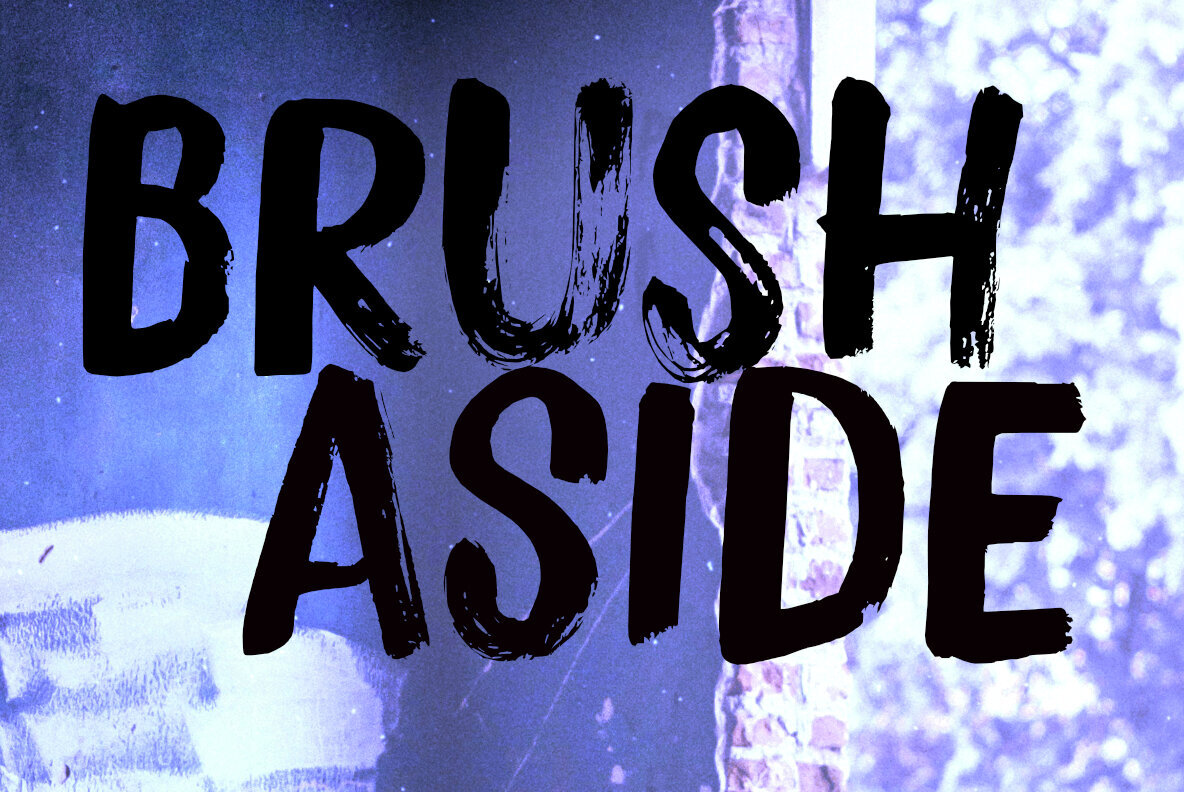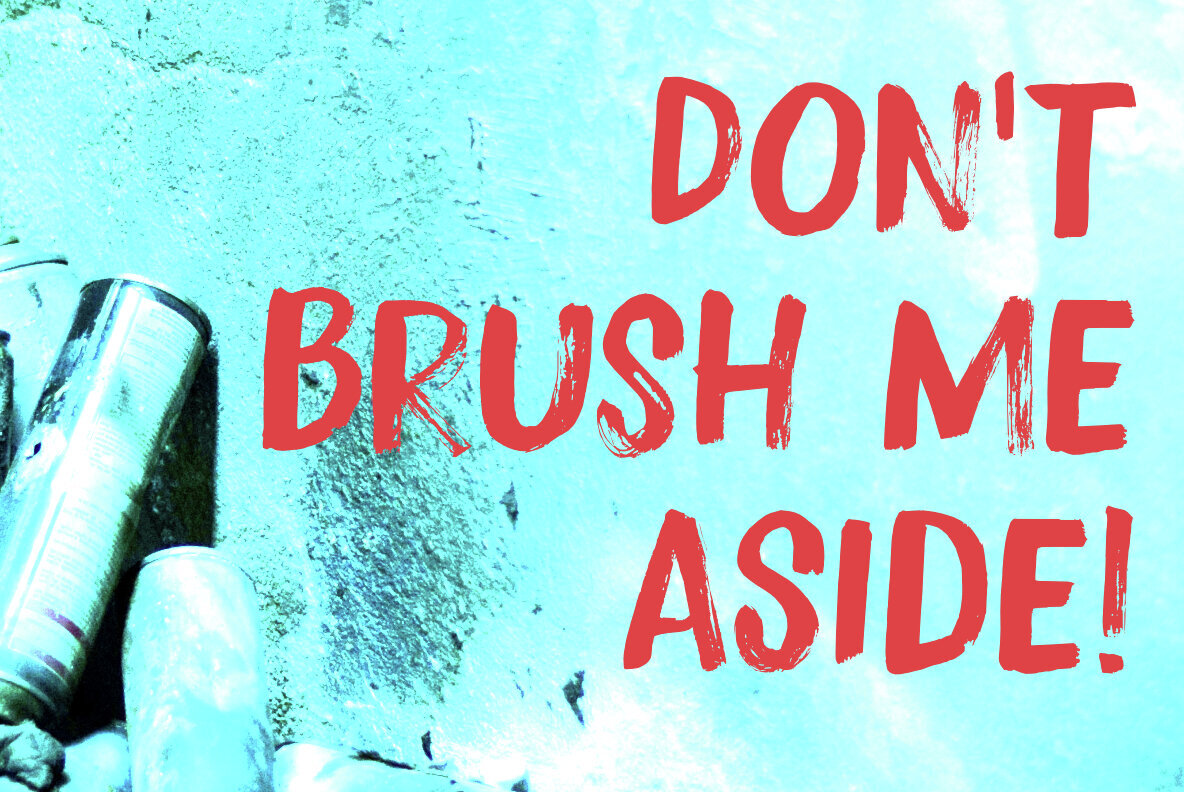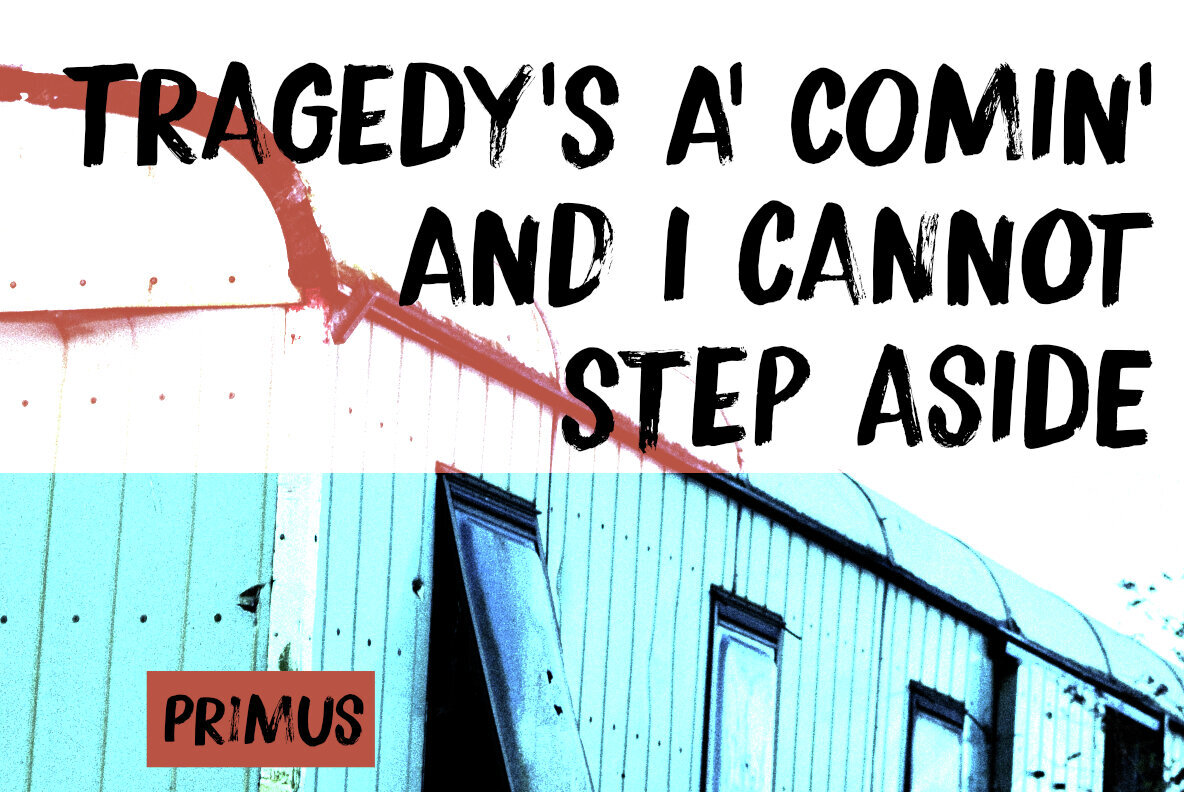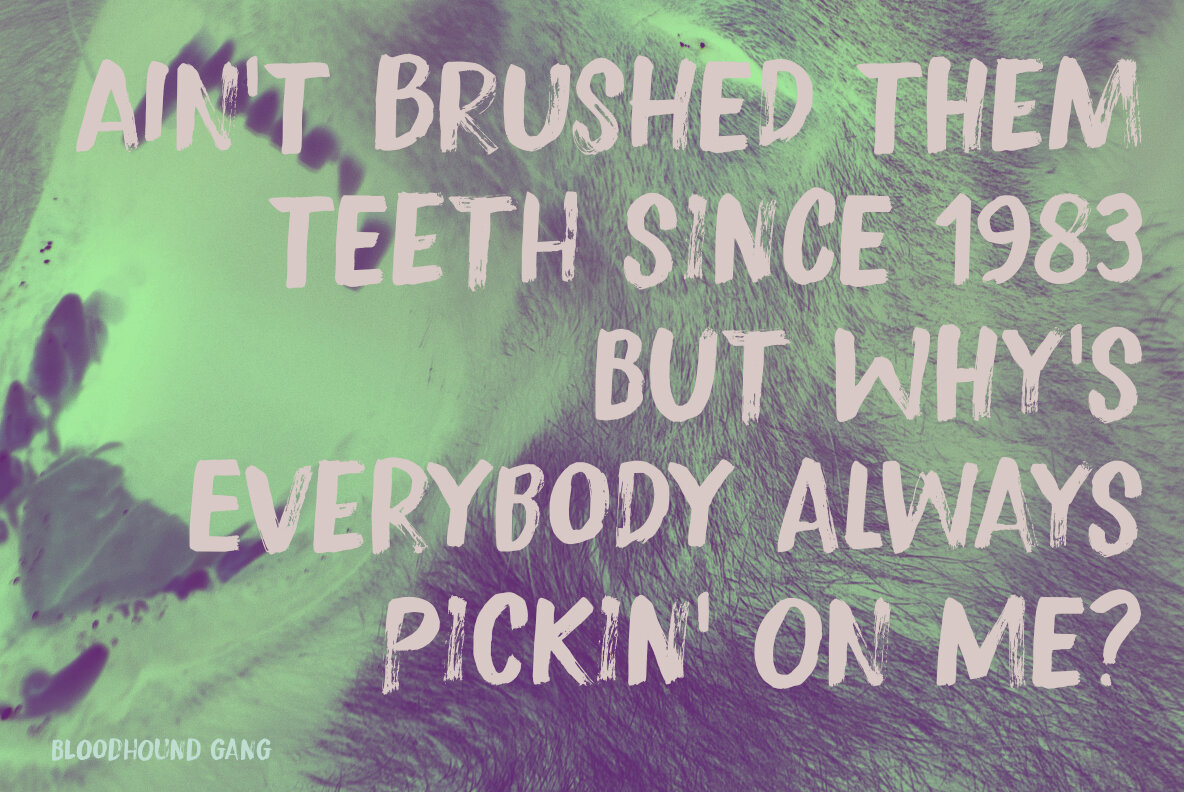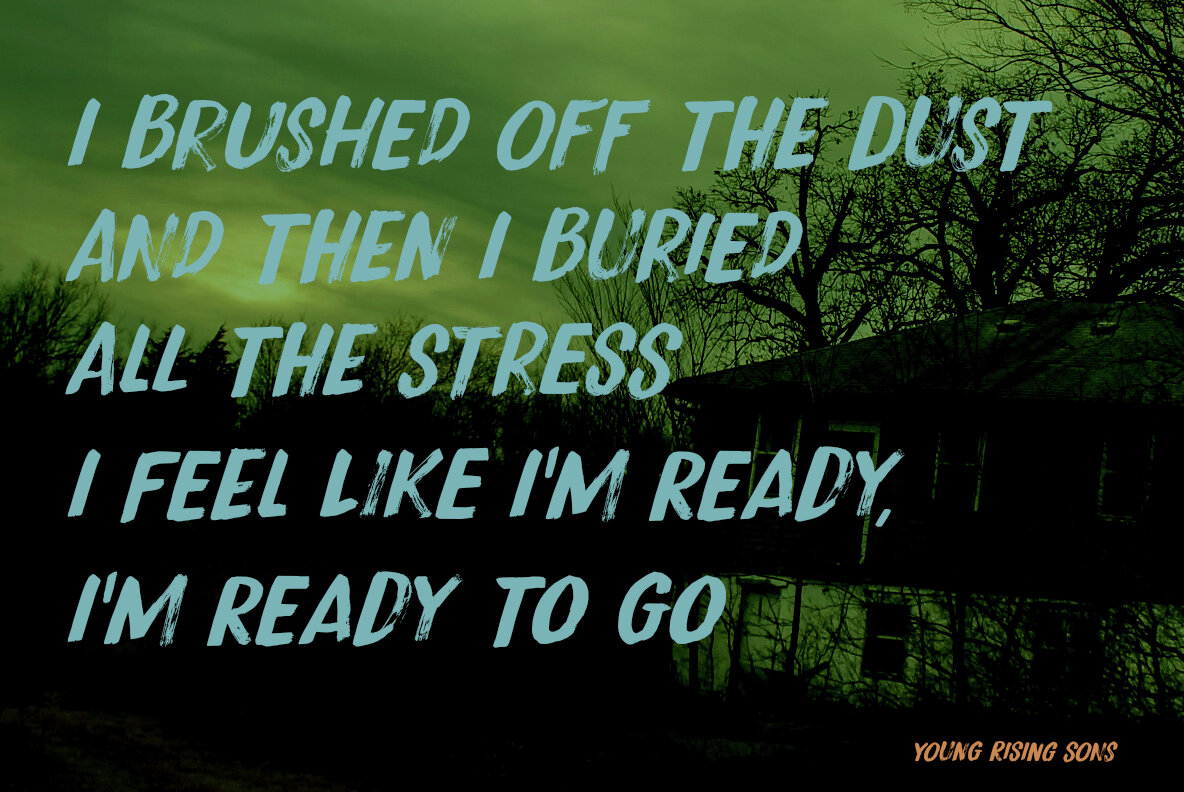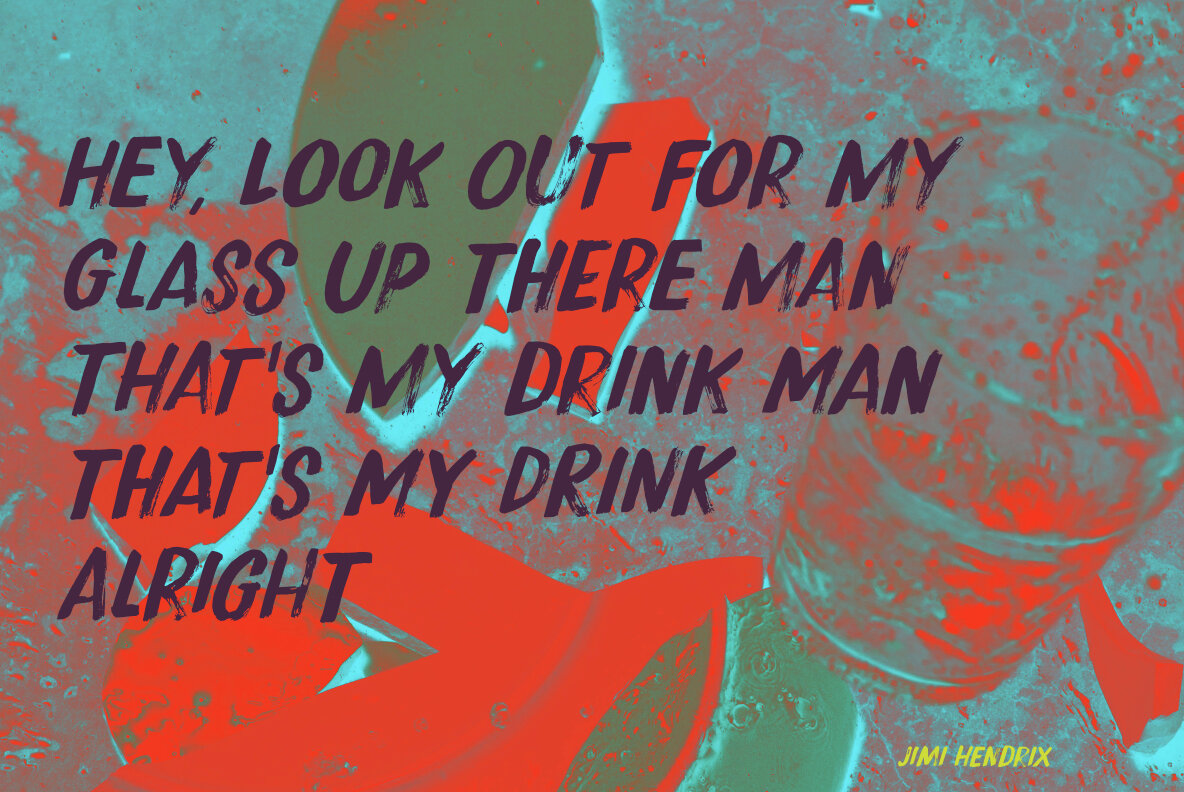
Brush Aside Font
Brush Aside Regular
Brush Aside Italic
Create a striking visual with Brush Aside, a display font that highlights the beauty of traditional brush strokes. This font, designed with passion and precision, is perfect for projects that require a bold and artistic touch. Brush Aside boasts extensive language support, making it ideal for a global audience. The two sets of auto-rotating glyphs add an element of surprise and variation to your typography, ensuring a dynamic and engaging visual experience.Brush Aside: Your Go-To Display Font